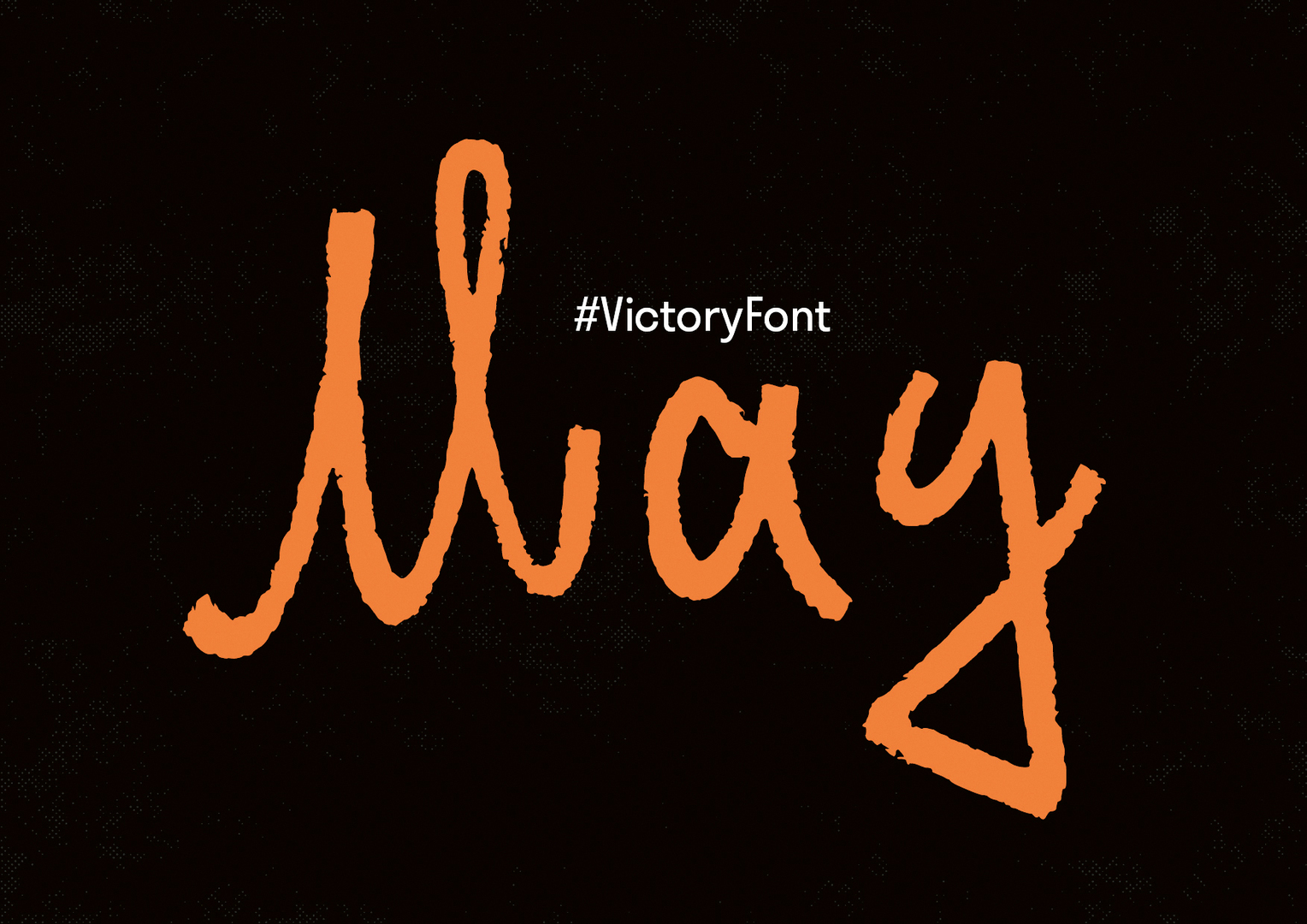
#VictoryFont May: A Typeface to Remember
As Nazi Germany capitulated in May 1945, thousands of soldiers left inscriptions on the walls of the Reichstag in Berlin. Today, most of these inscriptions can only be seen in photo archives and museums. To mark the 75th anniversary, the #VictoryFont May was created as the core element of the #VictoryPages project, which is a versatile social media documentary. The font is based on hundreds of original historical inscriptions studied during months of research. It is a tool designed to commemorate the veterans and convey a message of peace. Through its characters and symbols, the font aims to create a link between the past and the present.